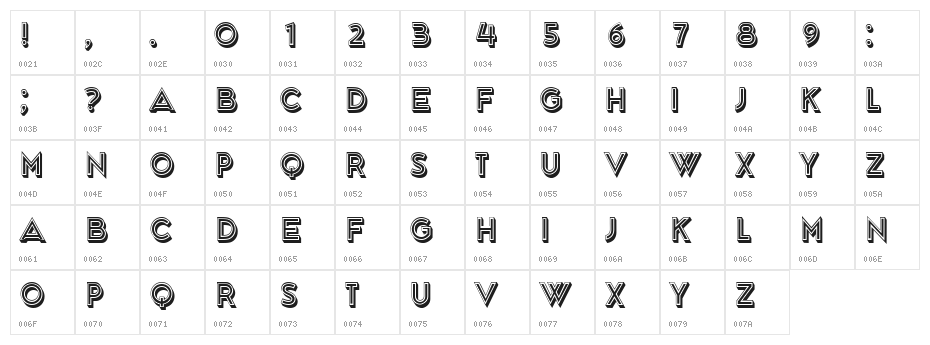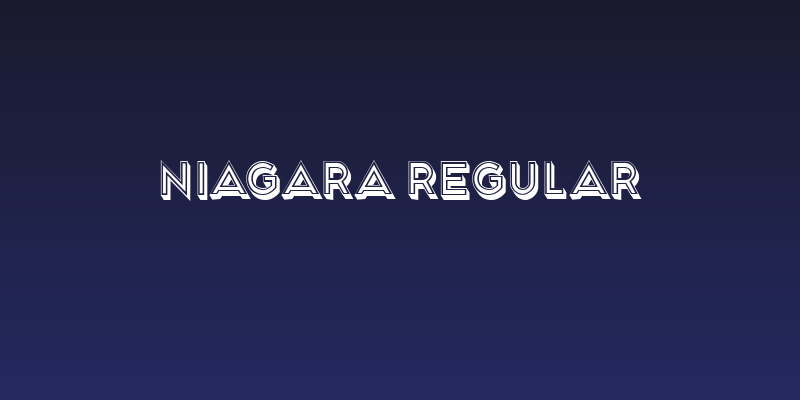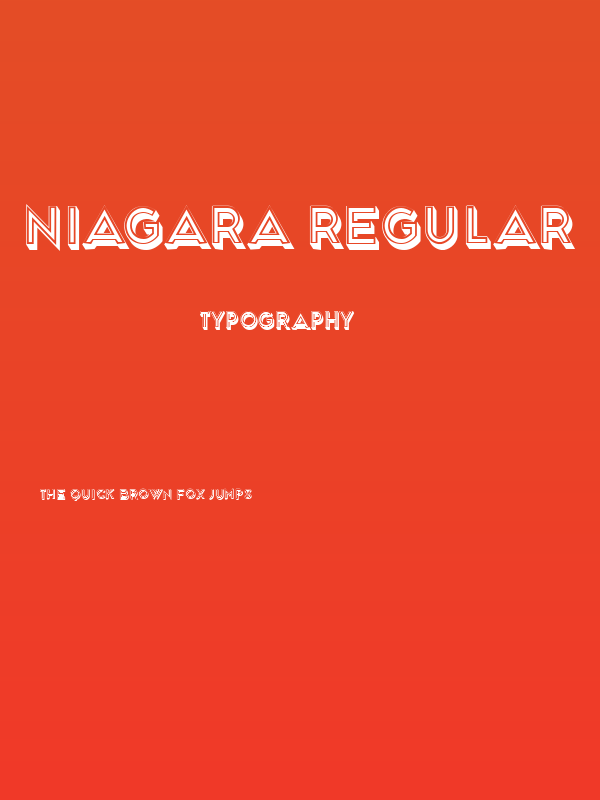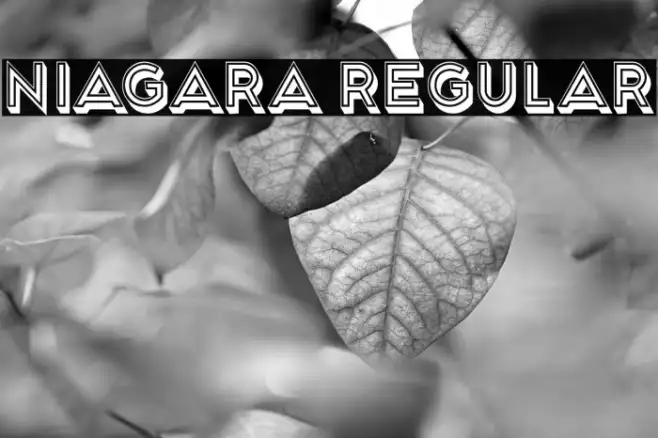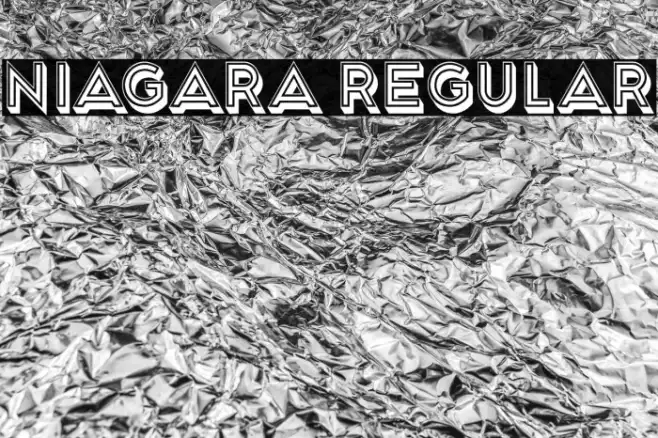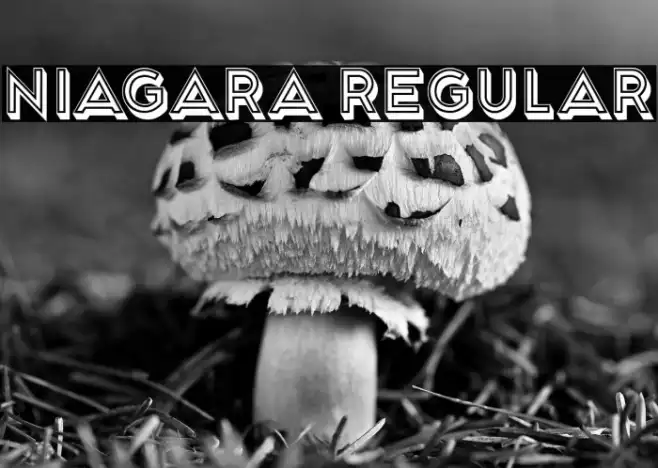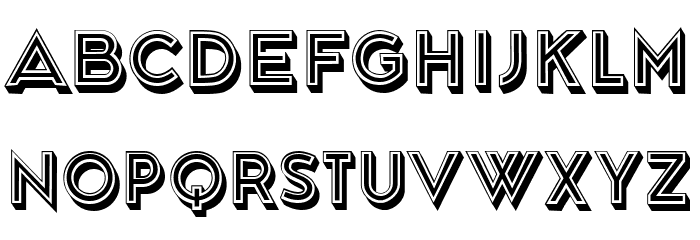
Niagara Regular Font
Niagara Regular Description
This font features a bold, geometric design with a three-dimensional effect, achieved through the use of shadowing and layering. The characters are uppercase and numerals, each with a distinct, blocky appearance that gives a sense of depth and solidity. The style is reminiscent of Art Deco, with its clean lines and symmetrical forms. The font's structure is consistent, with uniform stroke widths and a strong emphasis on vertical and horizontal lines, creating a striking visual impact. The spacing between characters is tight, enhancing the compact and cohesive look of the text. This font is ideal for making a bold statement in headlines or logos, where its unique style can be fully appreciated.
| Overall Style | Art Deco |
| Proposed Projects | Ideal for use in branding, posters, signage, and any project requiring a bold, eye-catching typeface. |